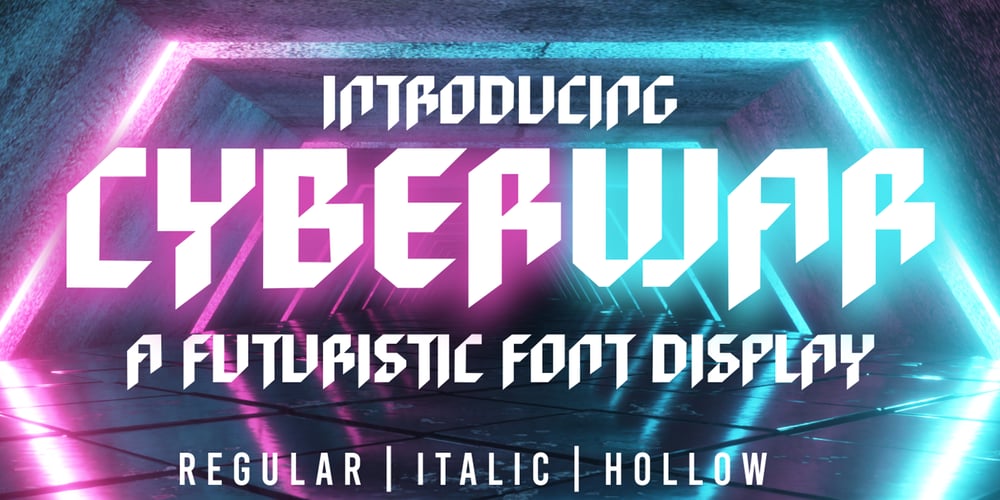
Cyberwar Font Family was designed by Sipanji and published by Sipanji21. Cyberwar contains 3 styles and family package options. Cyberwar is a futuristic display font. with a cyber touch, with a straight and firm character, in it there are several styles, including regular, italic, hollow (outline) style, you can use this font for various design purposes, such as logo design, t-shirts, sports, crafting, packaging, tittle of movie, video game, etc. and make your design awesome with this font.